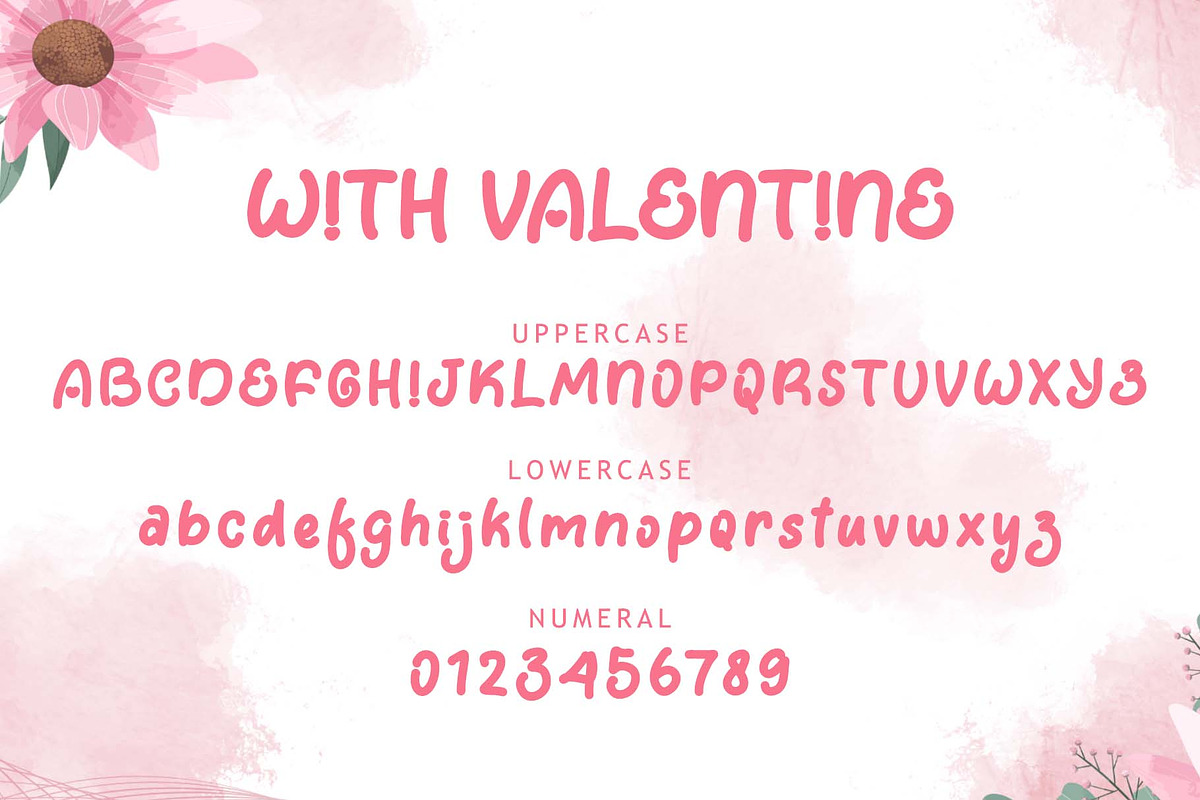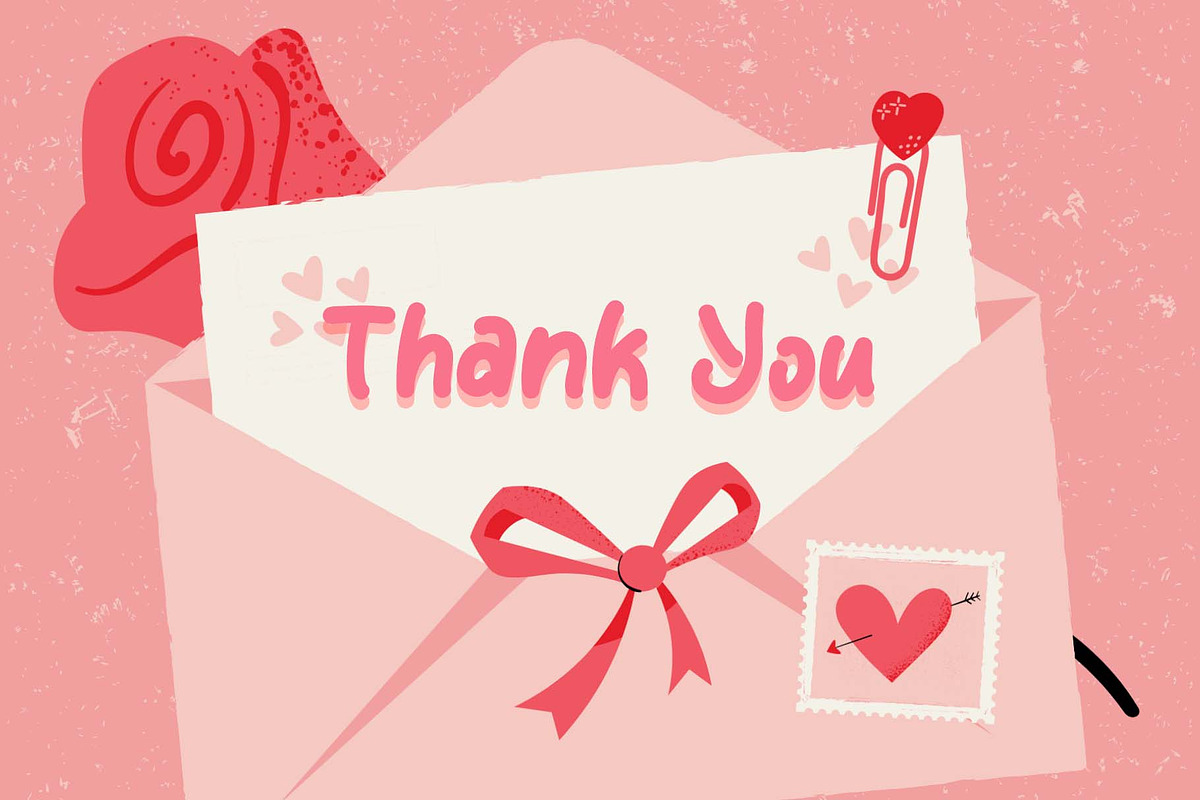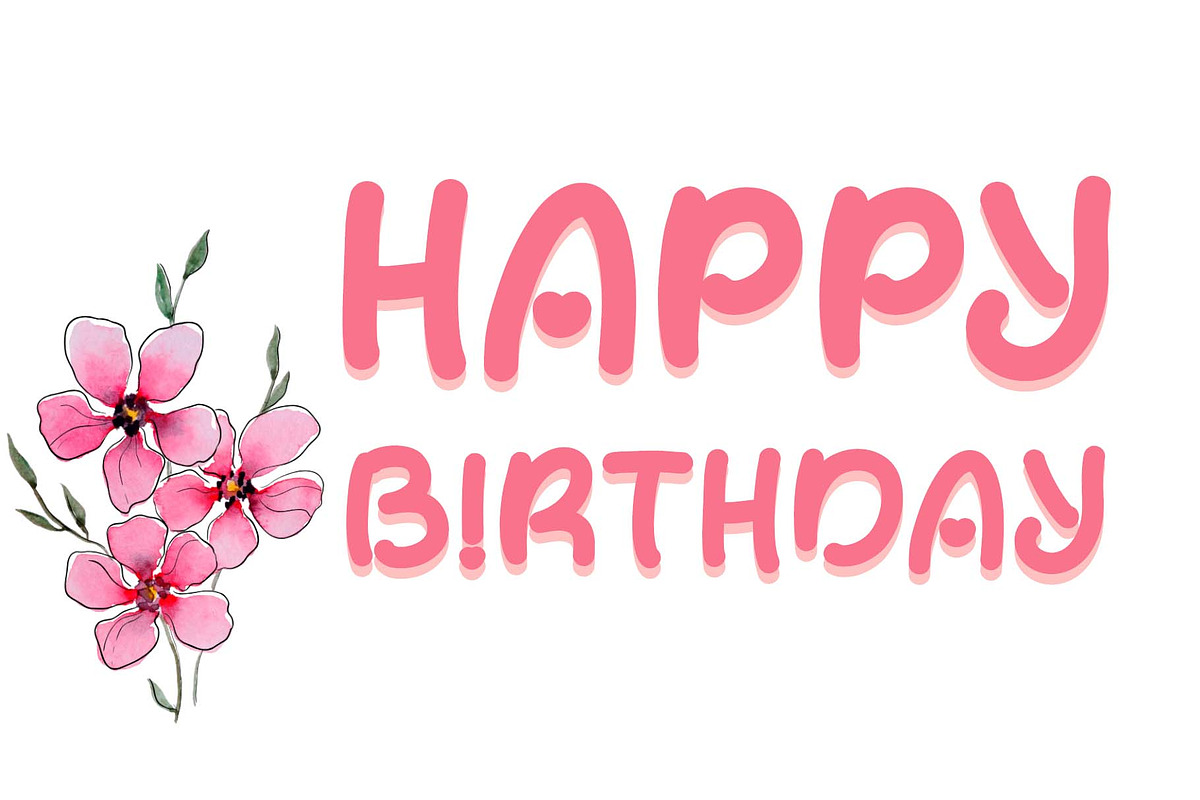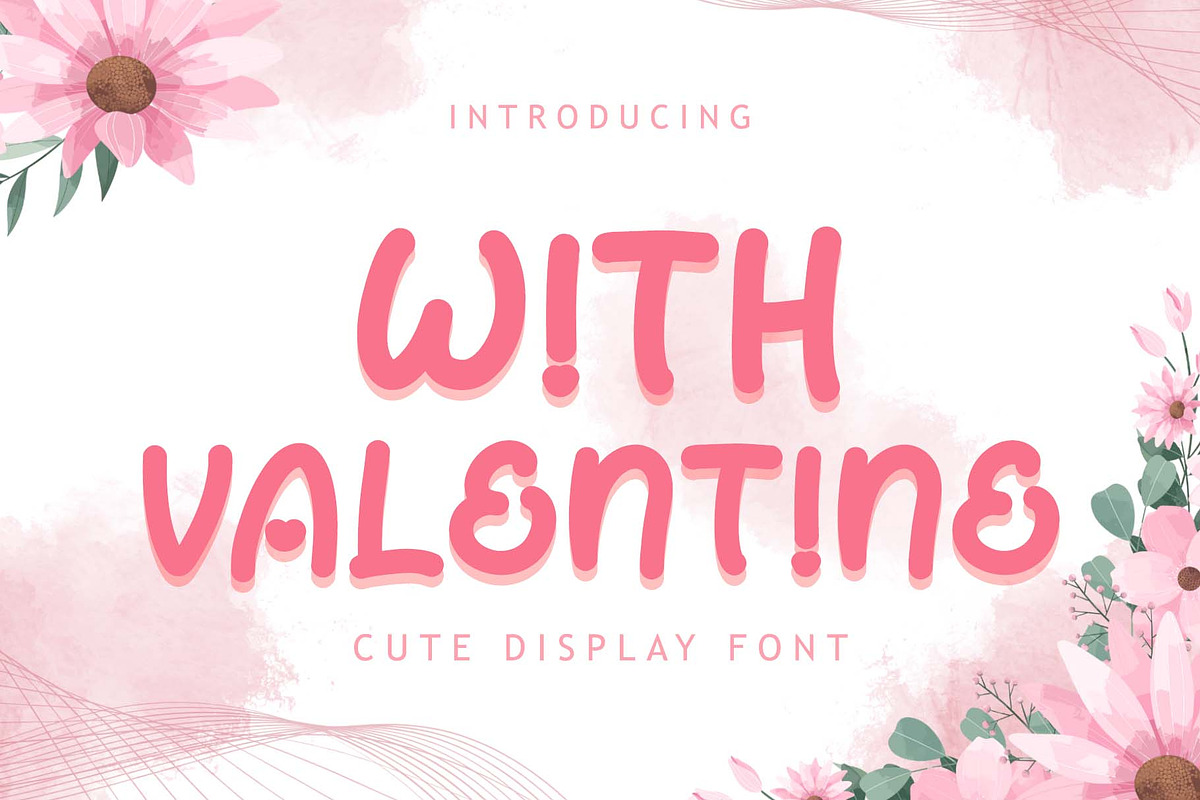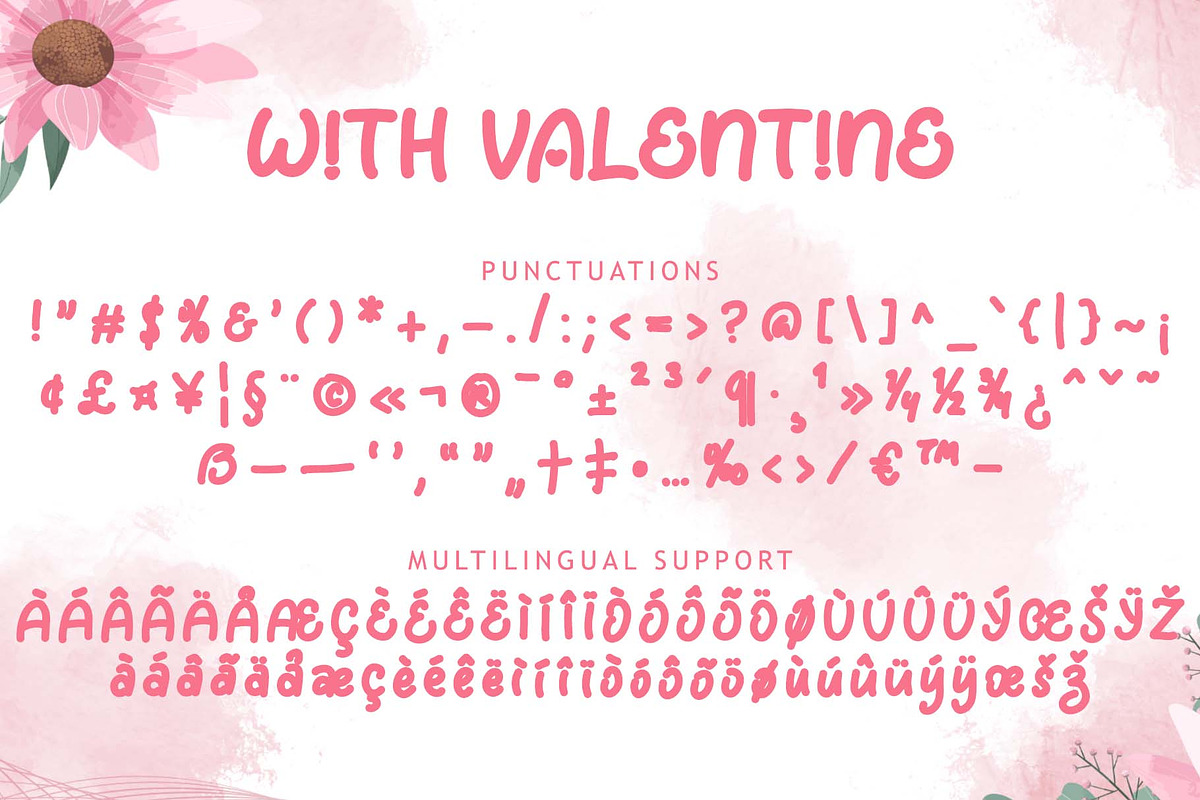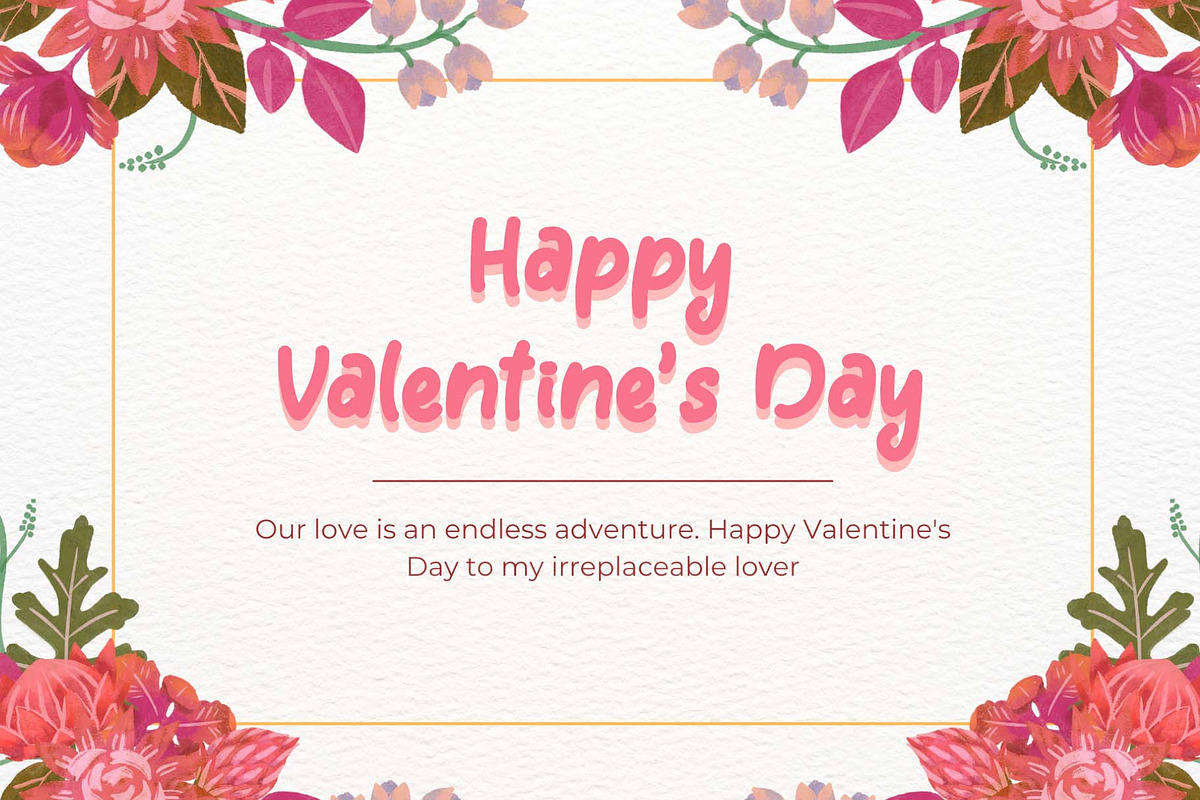
With Valentine
"With Valentine" is a cute and beautiful display font. It comes with uppercase, lowercase, numbers, punctuation, and multilingual support. It is perfect for use on Valentine's Day, wedding, Christmas, banners, posters, prints, branding, stickers, Easter, photography, holidays, and more.